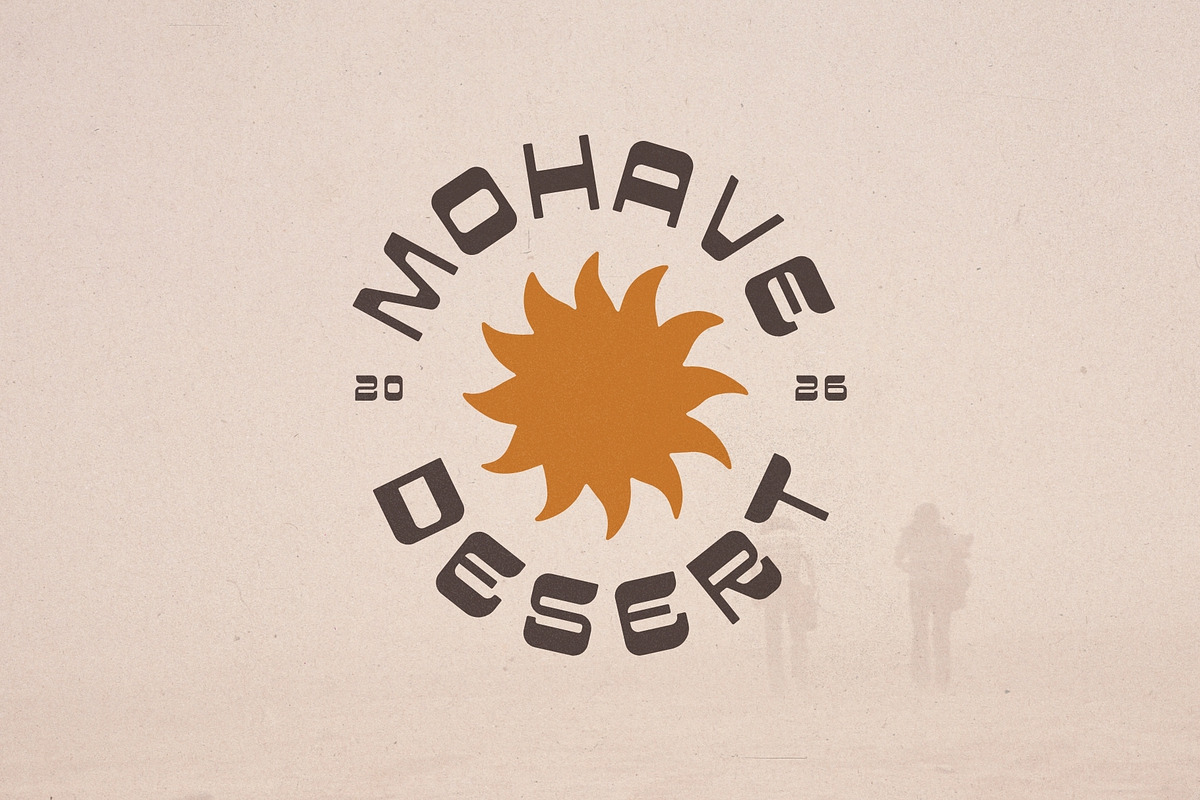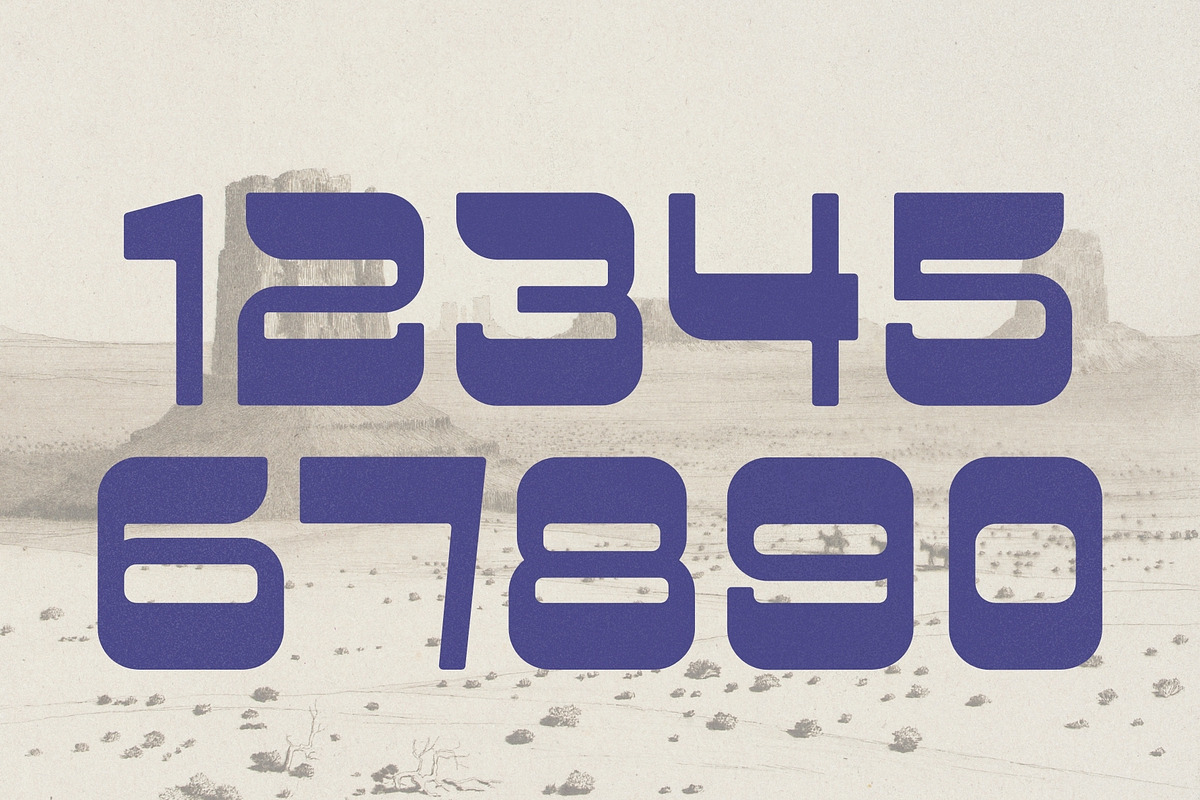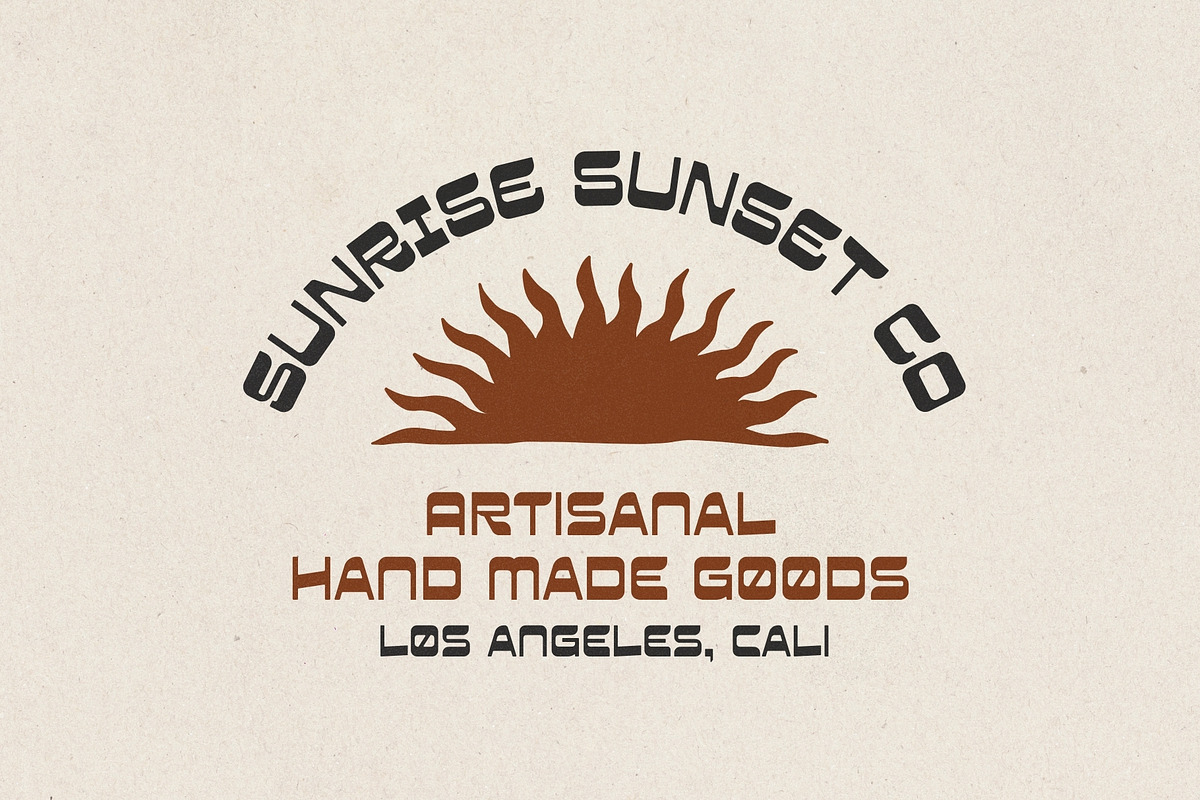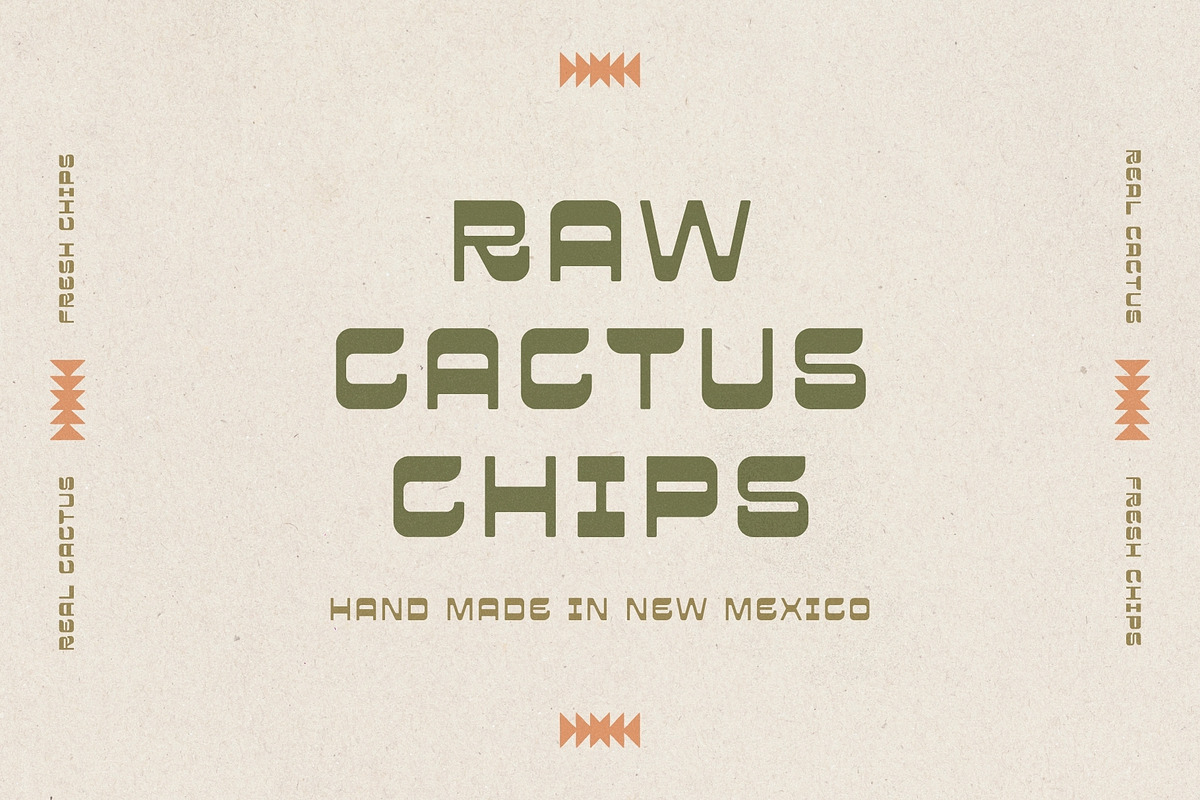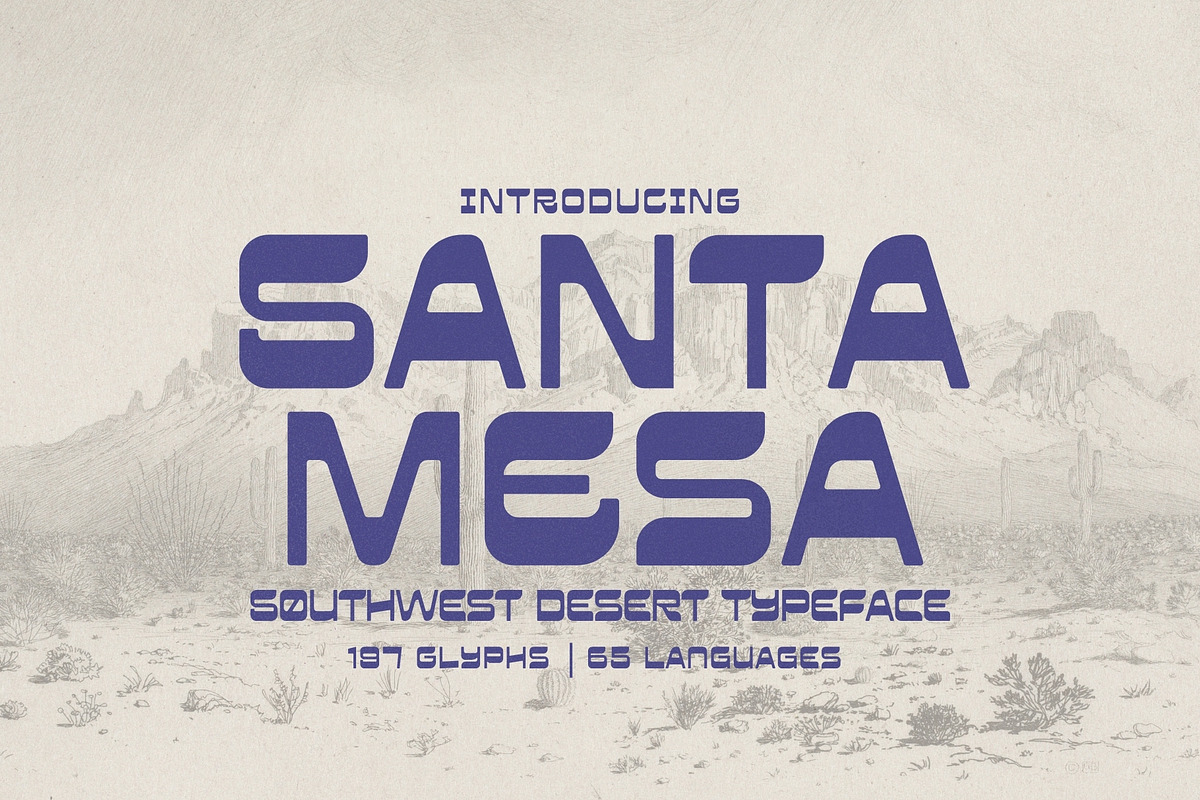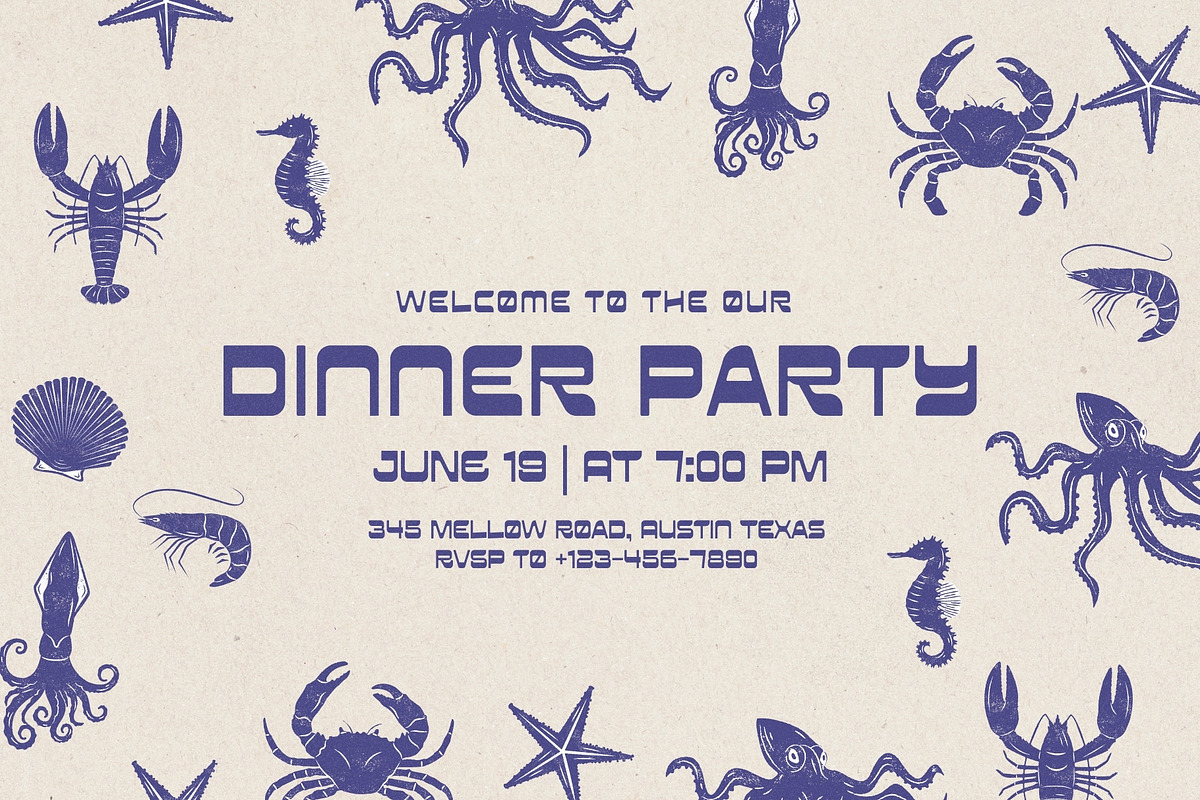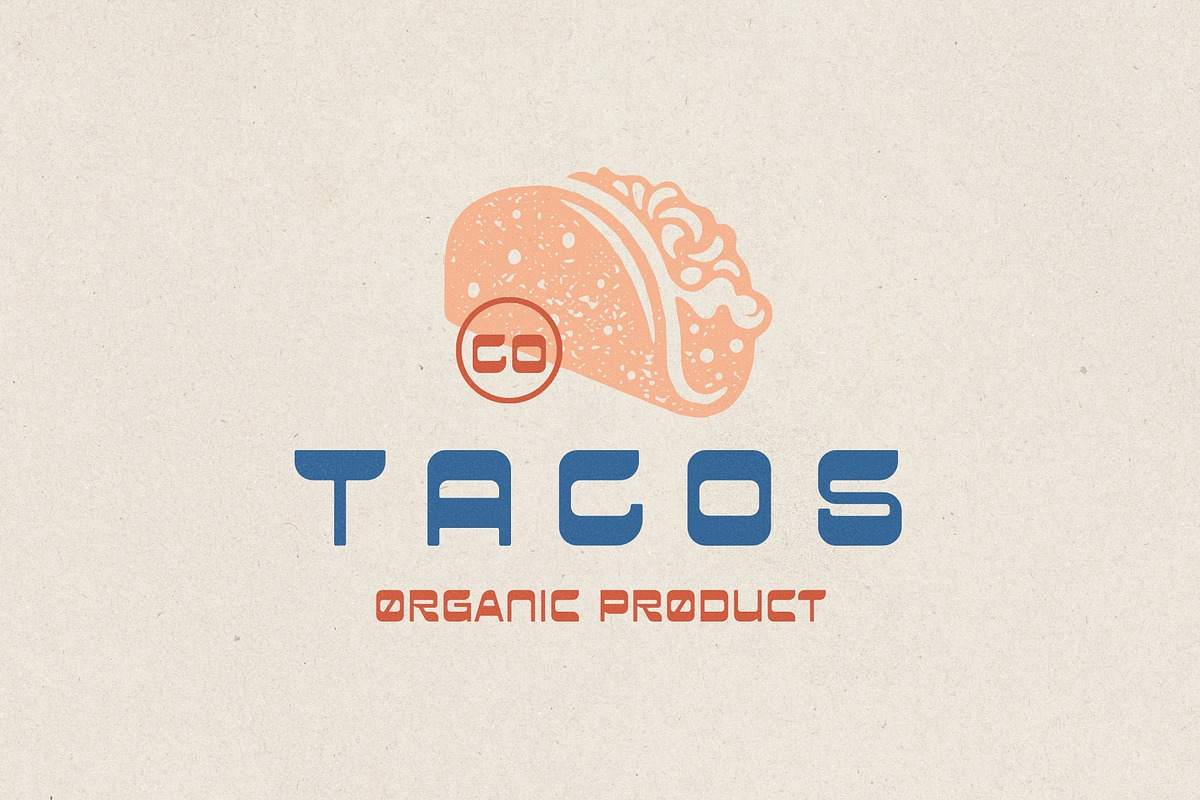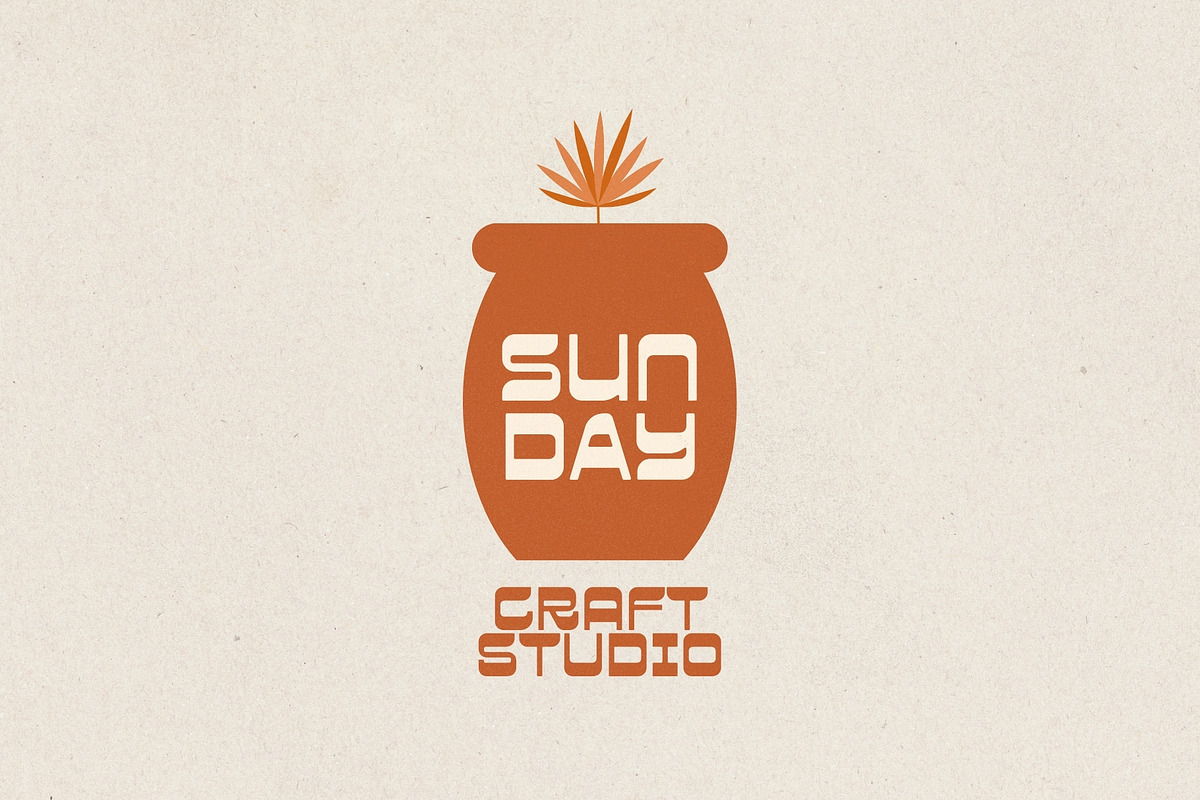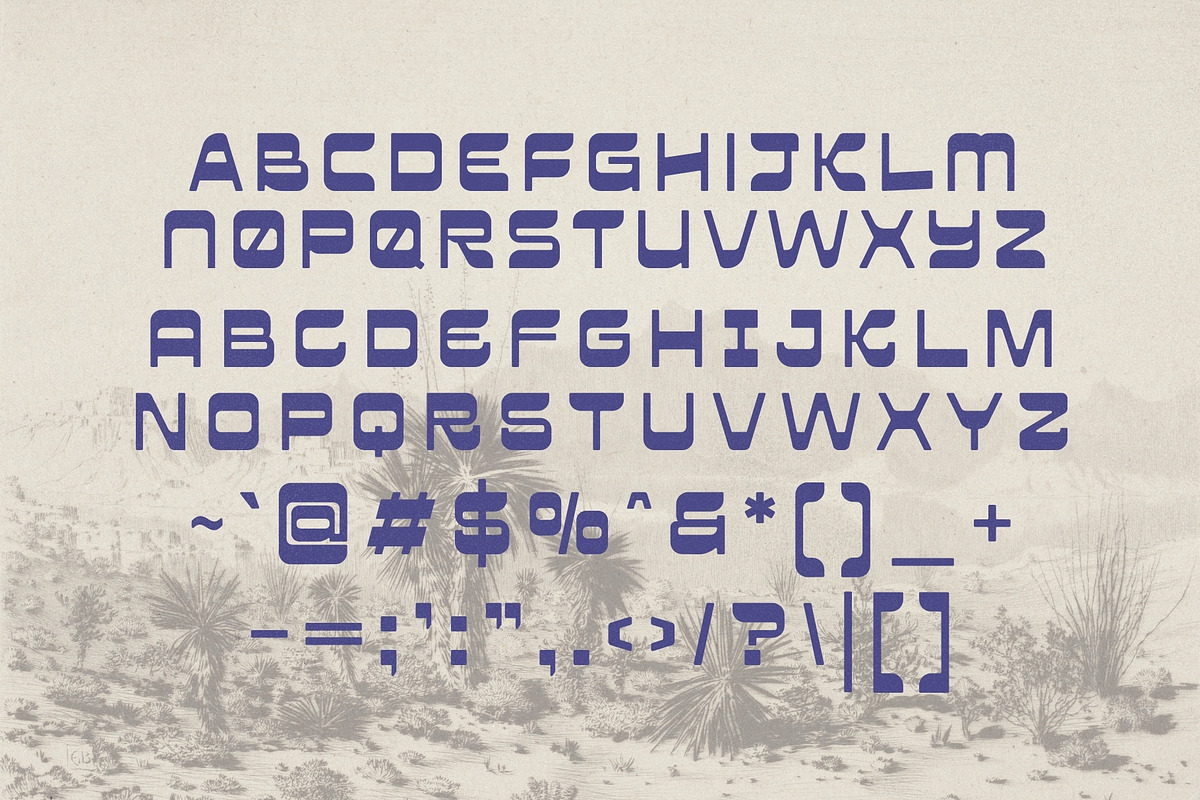
Santa Mesa – A Southwest Typeface
Introducing Santa Mesa, a warm and expressive Southwest-inspired typeface infused with boho spirit, desert soul, and rustic western character. This font brings the charm of dusty sunsets, adobe towns, and vintage cowboy culture straight into your designs.
With its bold shapes, organic curves, and handcrafted feel, Santa Mesa captures a beautiful blend of bohemian artistry and southwestern grit — perfect for designers seeking a typeface that feels both adventurous and stylishly laid-back.
Whether you're designing for cowboy-themed branding or boho-inspired visuals, Santa Mesa delivers unmistakable personality.
✨ Why Santa Mesa Stands Out
Southwest-inspired letterforms with natural, rustic character
Boho aesthetic with warm, earthy charm
Bold yet approachable—perfect for strong visual impact
Designed to evoke desert vibes, vintage western culture, and artisanal style
Ideal for logos, restaurants, packaging, and lifestyle branding
🎨 Perfect For
Cowboy & western branding
Mexican & Tex-Mex restaurant logos
Boho lifestyle brands
Desert-themed posters
Travel blogs & adventure branding
Logo & badge design
Rustic product packaging
Southwestern decor shops
Outdoor & festival graphics
Santa Mesa brings the heat of the desert and the soul of the Southwest to any design. Whether you're creating branding with wild-west flair or boho elegance, this font turns every project into a striking, unforgettable visual story.